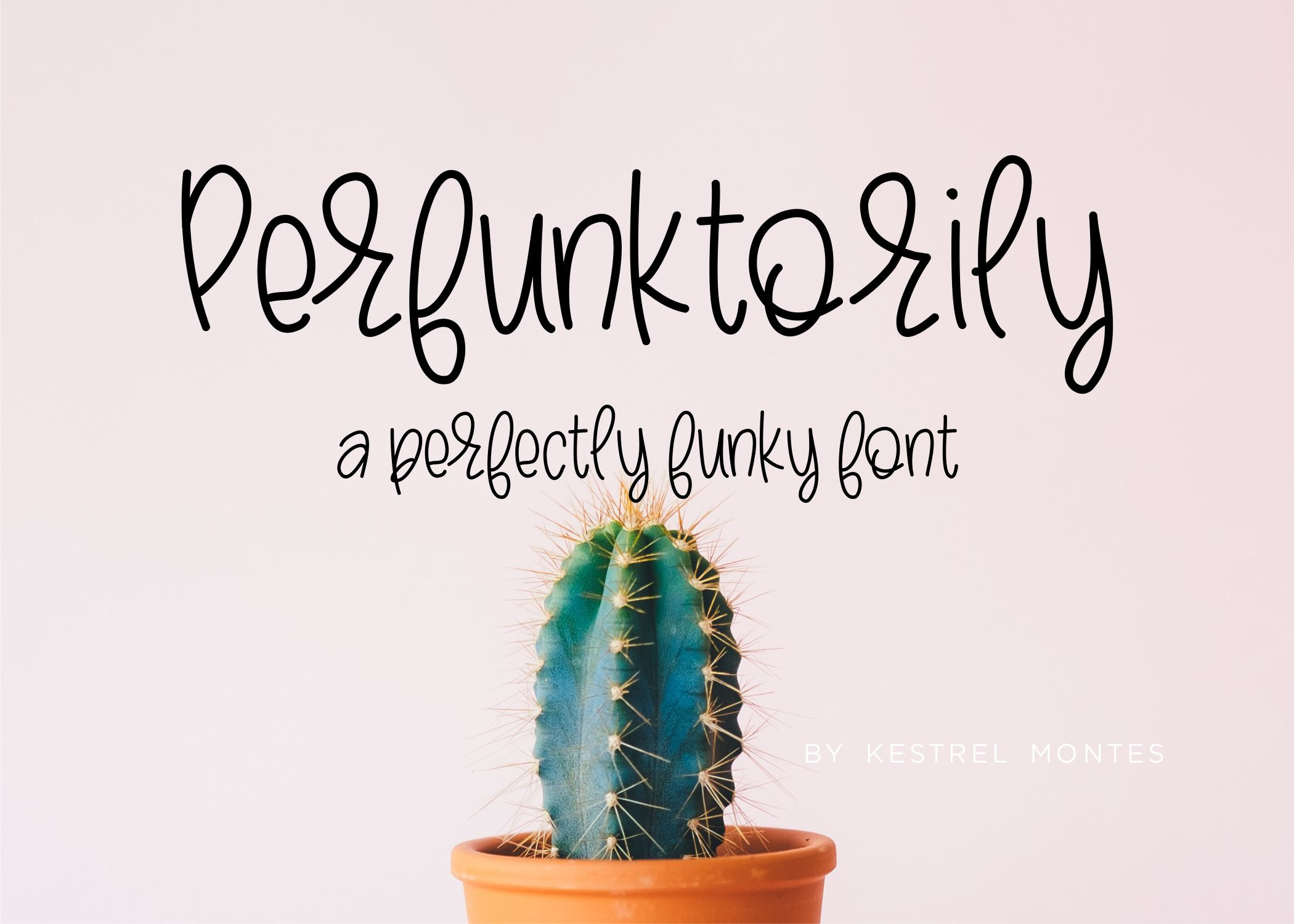
Perfunktorily handlettered font
Perfunktorily by Kestrel Montes is bubbly and perky modern print font in the hand lettered style so popular on Instagram!